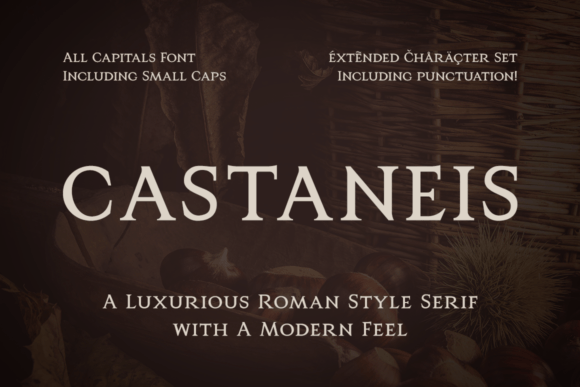
Behold, Castaneis – the ultimate serif font family, a typographic virtuoso that will captivate your readers and transport them to a world of elegance and sophistication. Crafted by the ingenious minds at pixelBL, Castaneis is not merely a collection of letters – it's an artistic masterpiece that transforms your words into visual poetry.
Castaneis is a font family of exceptional versatility, effortlessly adapting to your diverse design needs. Whether you seek to craft captivating headlines that demand attention or desire a body text font that exudes readability and sophistication, Castaneis is your steadfast companion. Its modern twist and luxurious feel elevate your designs to new heights, ensuring they leave a lasting impression on your audience.
Immerse yourself in the grandeur of Castaneis, a font family inspired by the timeless beauty of Roman architecture. Each letterform is meticulously crafted, showcasing sharp serifs and graceful curves that evoke a sense of refinement and luxury. Castaneis possesses an inherent charm that captivates the eye, effortlessly enhancing the impact of your written words.
Step into the realm of storytelling with Castaneis, the perfect font for authors seeking to create novels that resonate with readers. Its stately presence adds depth and character to your prose, allowing your words to paint vivid pictures in the minds of your audience. Castaneis is the font of choice for authors who demand nothing less than excellence in their storytelling.
With Castaneis as your chosen font, you unlock a world of possibilities. Create eye-catching logos that command attention, craft stunning posters that ignite imaginations, and design brochures that leave a lasting impression. Castaneis is the ultimate design tool, empowering you to communicate your message with clarity, elegance, and an unforgettable flair.
Don't settle for ordinary fonts that blend into the background. Embrace the allure of Castaneis and watch as your designs blossom into works of art. Its versatility, sophistication, and timeless beauty will elevate your projects to new heights, leaving your audience captivated and eager for more. Castaneis is more than just a font – it's an experience that will transform your creative vision into an unforgettable reality.